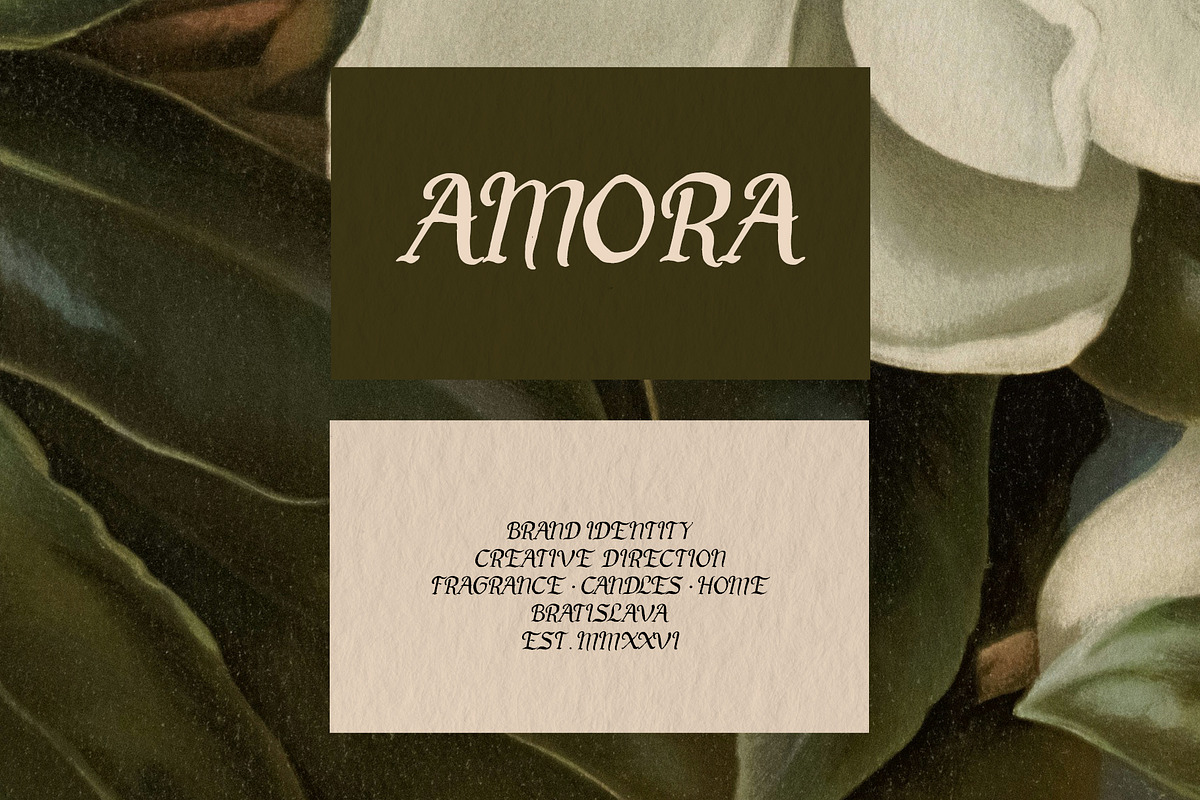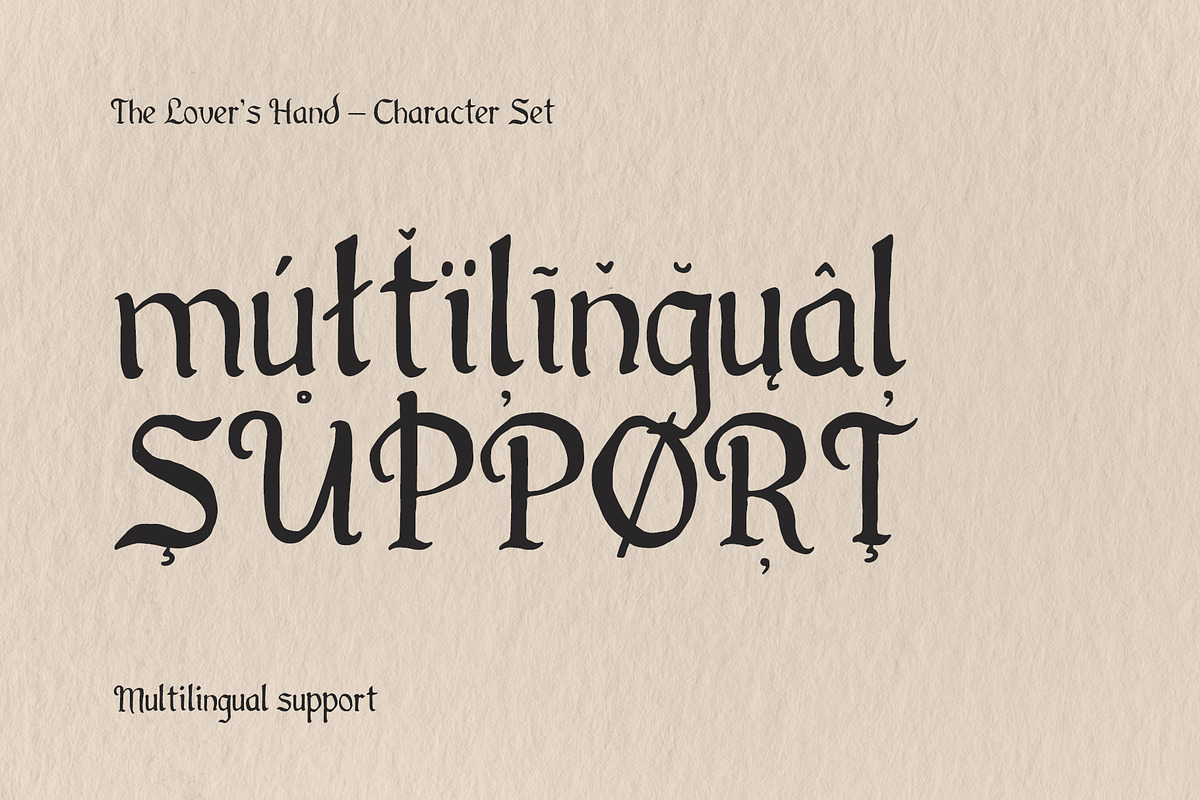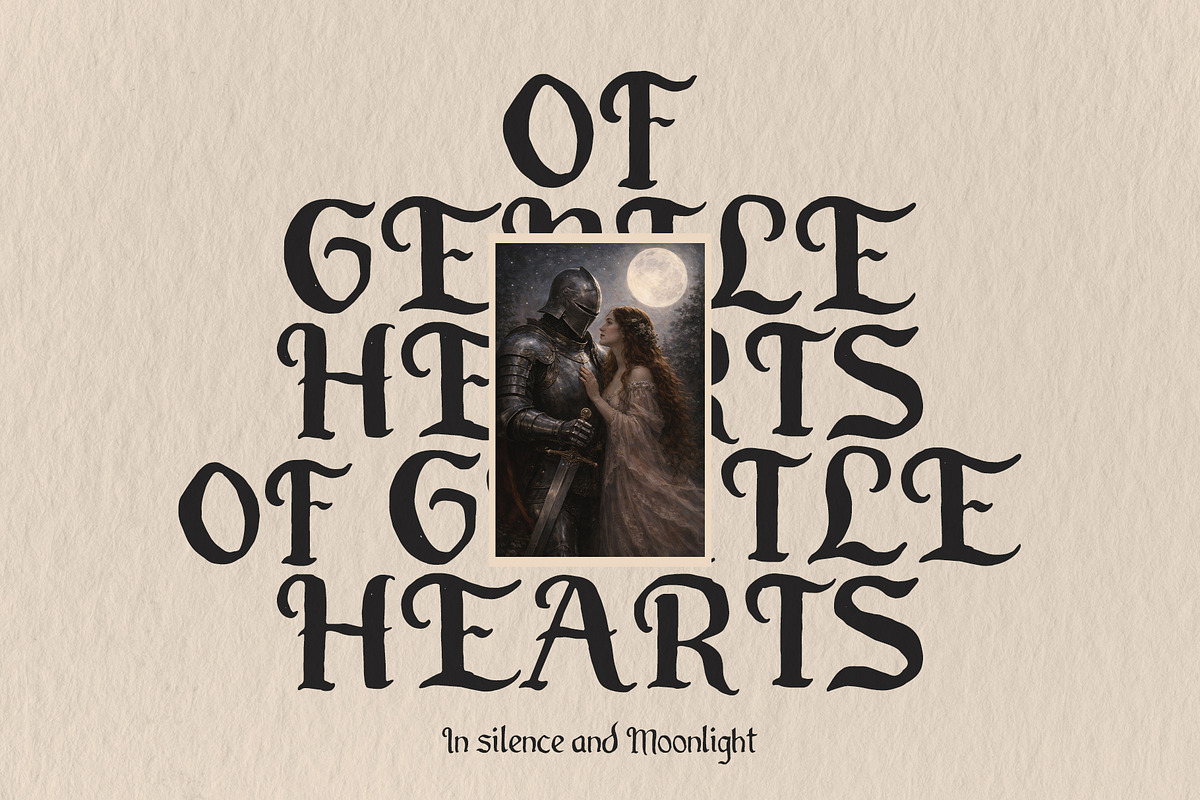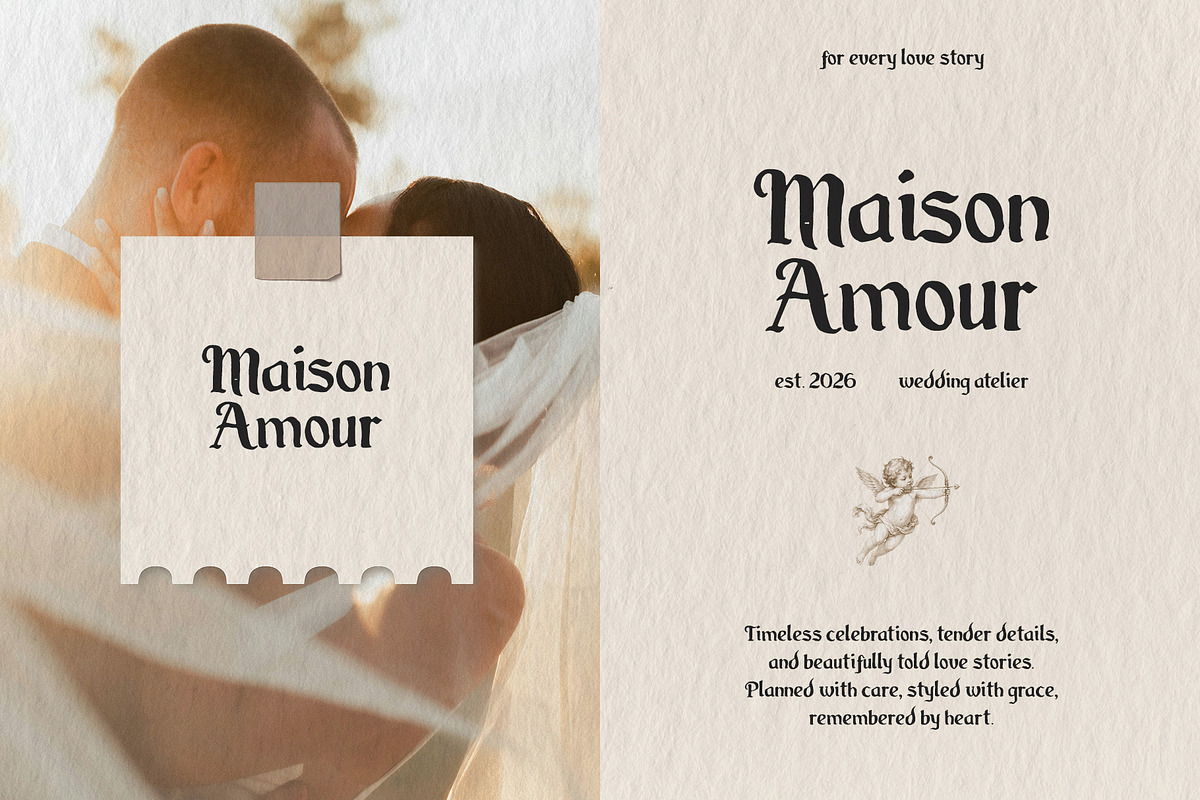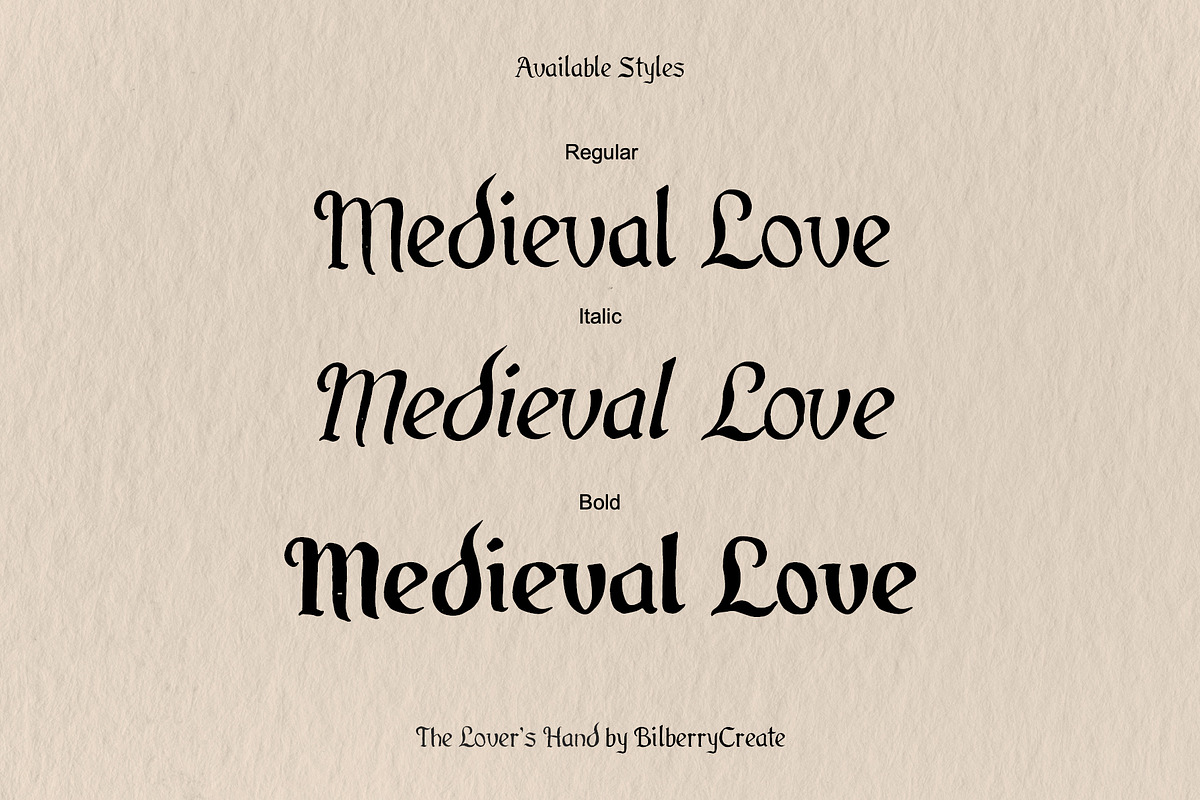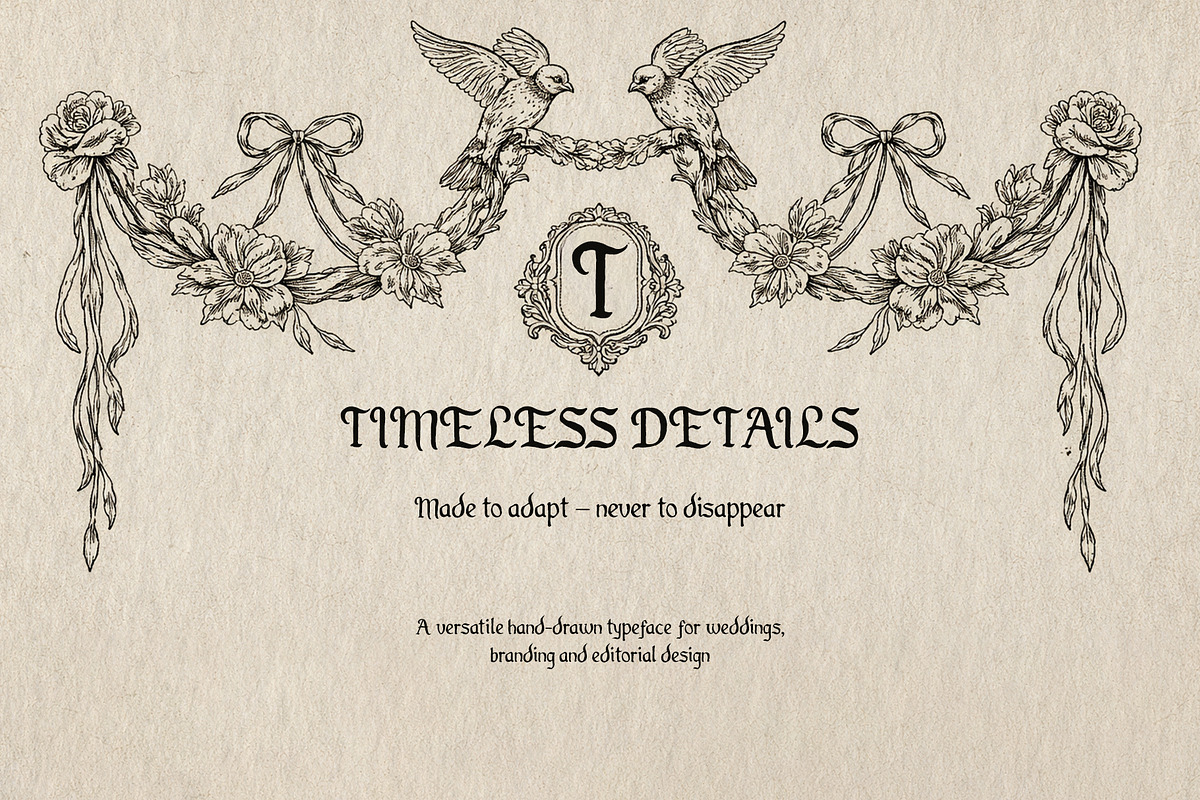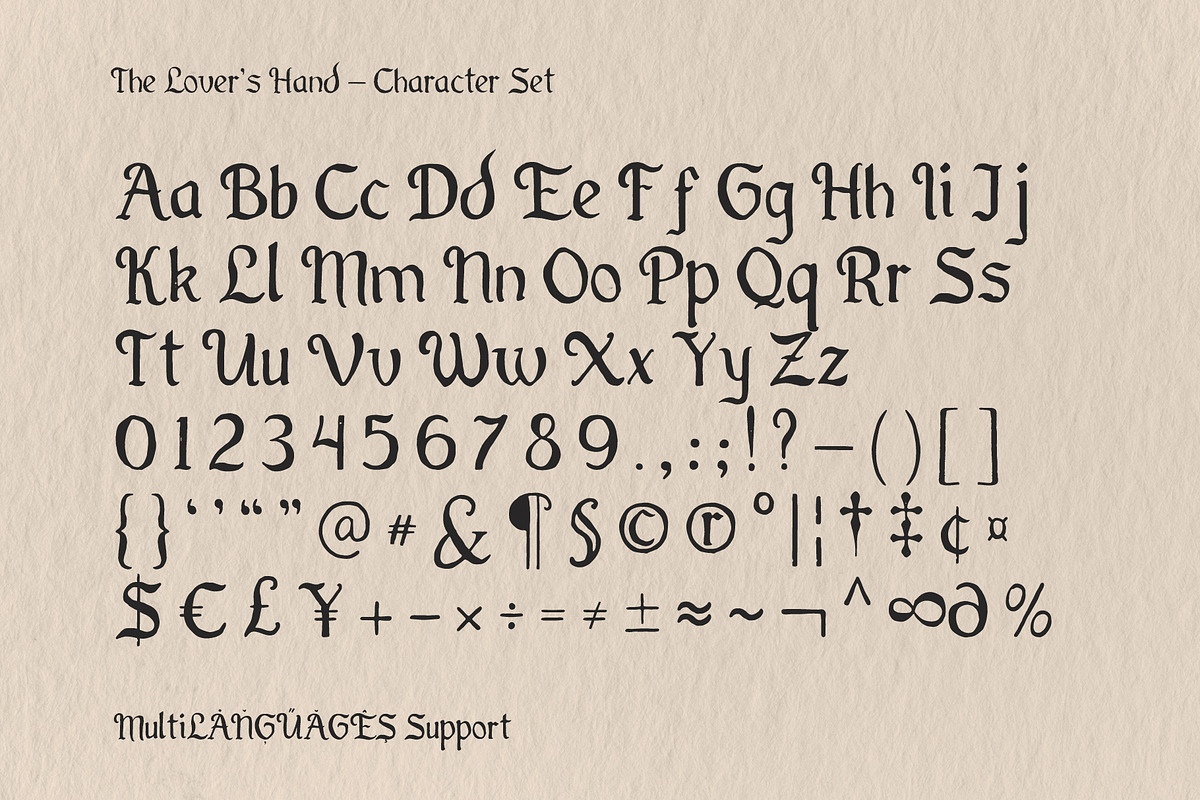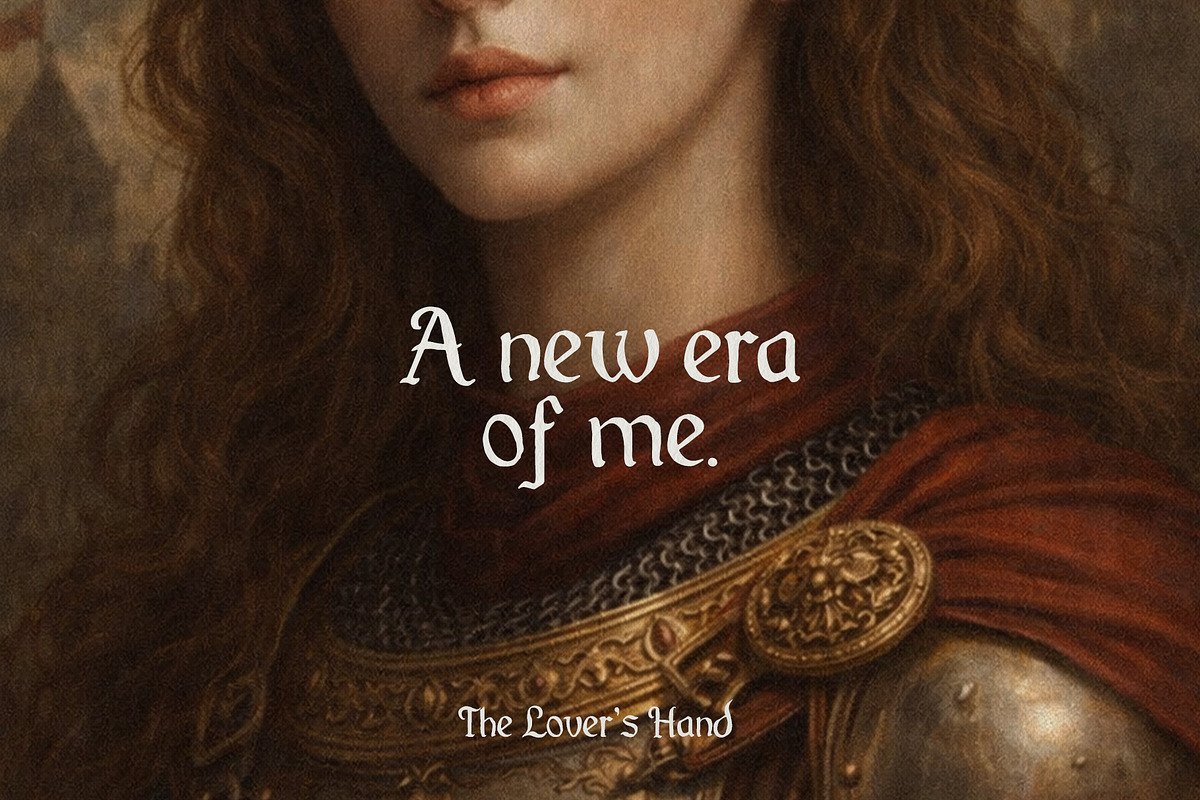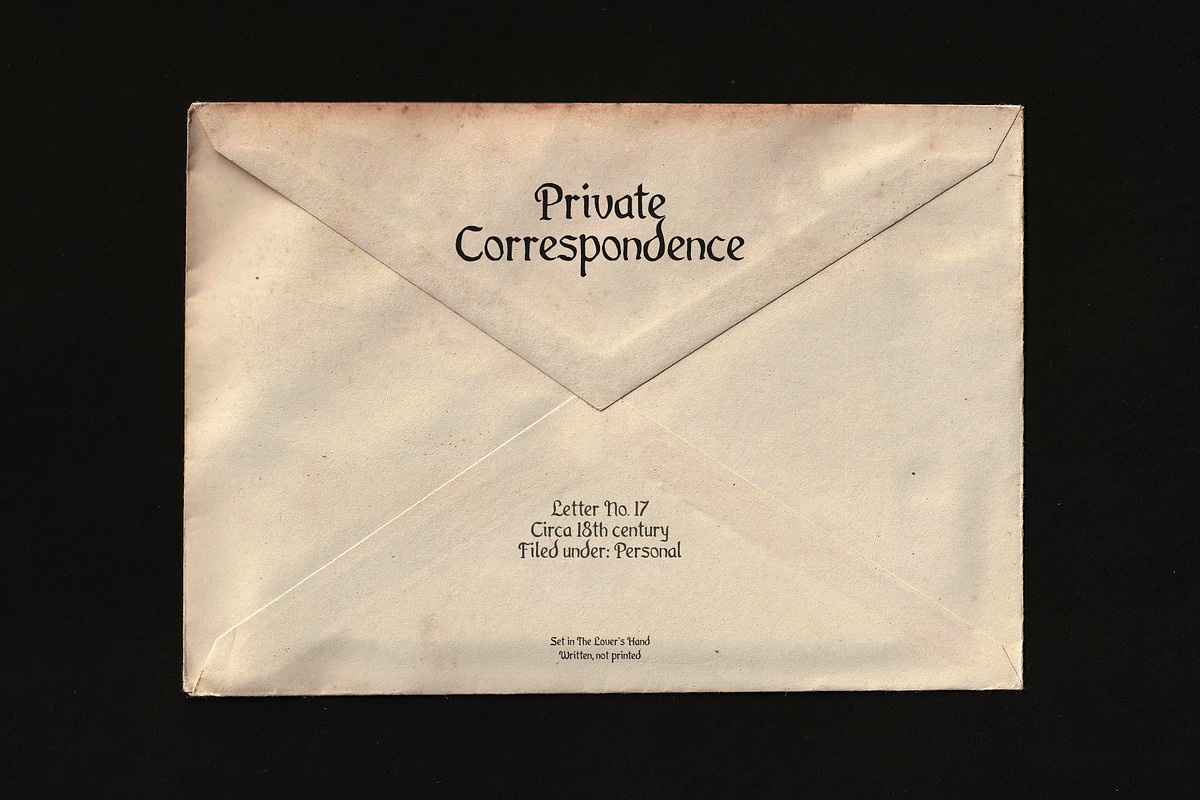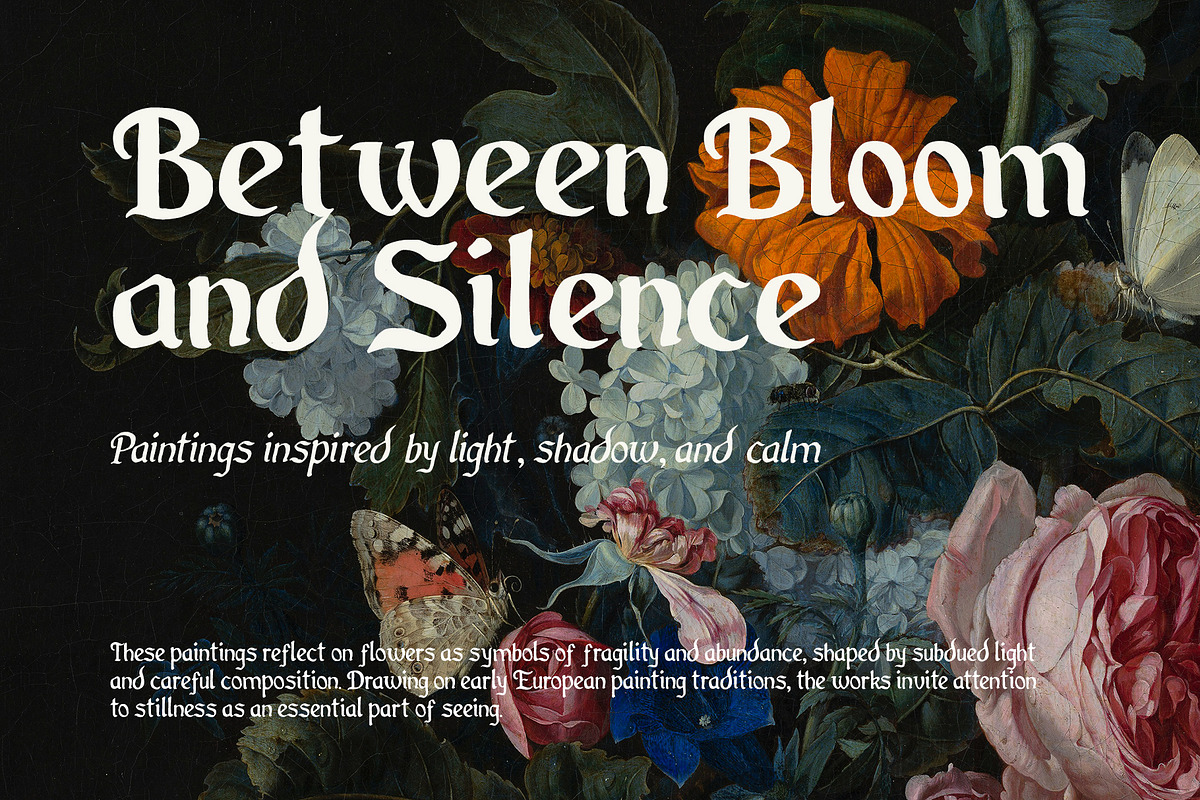
The Lover’s Hand Font Family
The Lover’s Hand is a hand-drawn serif typeface family inspired by personal correspondence, vintage print, and timeless ceremonial design. It carries the quiet character of letters meant to be kept - not rushed, not disposable, but written with intention.
Now available in Regular, Italic, and Bold, the family offers more flexibility while preserving the same warm, human voice across every style. Regular brings softness and readability, Italic adds a more personal, romantic rhythm, and Bold gives the typeface a stronger presence for expressive headlines, titles, and statement details.
Each letterform is drawn with subtle irregularities that give The Lover’s Hand its intimate, handcrafted character while remaining highly readable and adaptable. The balance between ornament and restraint makes it suitable for both expressive display use and refined text settings.
The typeface includes extensive multilingual support, covering a wide range of Latin-based languages with carefully crafted accented characters. Every diacritic is drawn to match the rhythm and character of the original letterforms, ensuring visual consistency across languages.
It works beautifully across a wide range of uses: wedding stationery, invitations, branding, editorial layouts, packaging, book covers, and personal projects that call for emotion and authenticity rather than perfection.
Designed to adapt - never to disappear - this typeface family feels equally at home in classic compositions and modern layouts. It is not bound to trends, but to atmosphere, making it a reliable choice for designers who value longevity, flexibility, and character.
Set in The Lover’s Hand. Written, not printed.